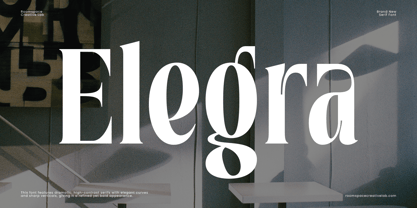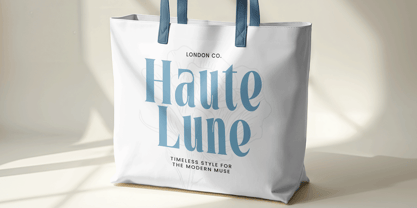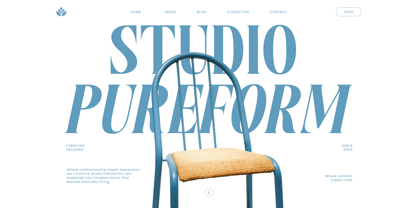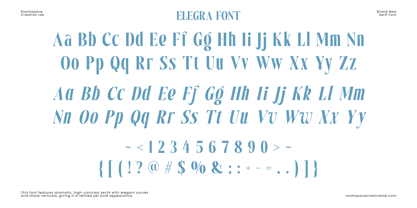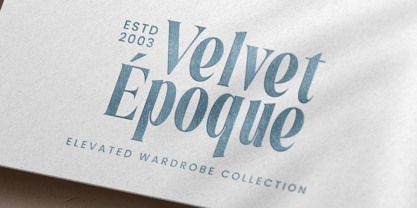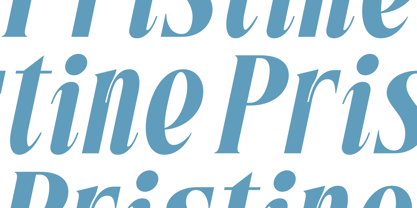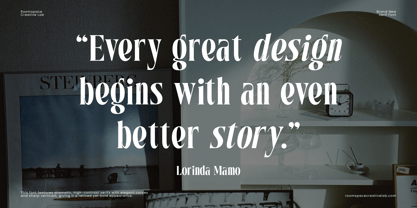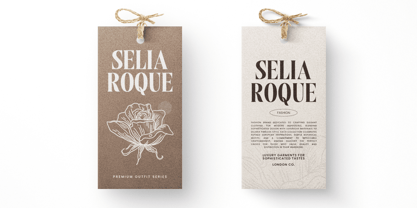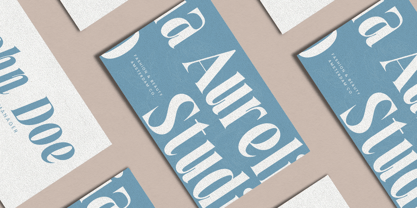
Elegra
by Jafar07
The Elegra Font Family was designed by Bakhrudin Ja'far and published by Jafar07. Elegra contains 2 styles and family package options.
Reaven is a modern serif font that blends sophistication with strength. Designed for creators who value both elegance and impact, Reaven features dramatic contrasts between thick and thin strokes, resulting in a look that feels bold yet refined. It’s the perfect balance between editorial charm and modern minimalism, making it ideal for luxury branding and design-forward projects. Crafted with precision, Reaven showcases elegant curves, sharp verticals, and consistent kerning that ensures perfect alignment across every use. Its high-contrast details bring visual drama to headlines, while maintaining excellent readability in longer texts. The typeface comes in Regular and Italic styles, offering designers flexibility to mix tone and texture within a single design system.
A little from my personal design & background: My name is Bakhrudin Ja'far, I live in Malang, Indonesia. I am currently completing my degree in visual communication design and I have worked as a lettering artist and logo designer for many years. I finally started my studio called roocspace creative lab (jafar07) Studio a few months ago and with my team made my letters into typography.